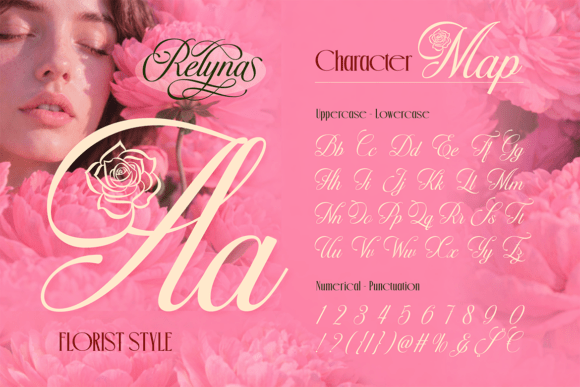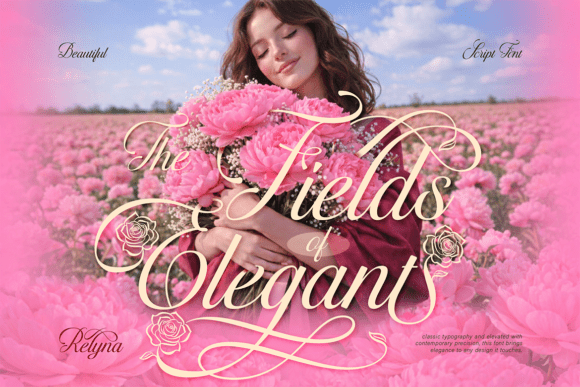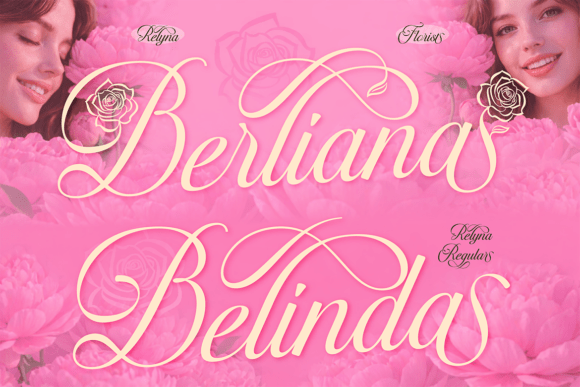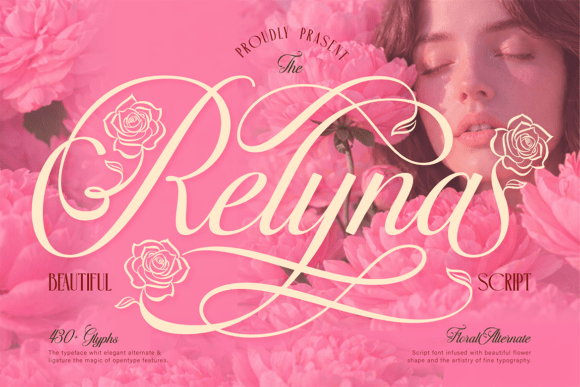
Introduction to Relyna Font
Relyna is a beautiful script font inspired by blooming flowers and romantic moments.
It comes with graceful swashes, soft curves, and unique floral alternates that make your design look more elegant and artistic This font is designed to bring a feminine, luxurious, and timeless feel to any project.
Key Features of Relyna Font
Why Choose Relyna Font?
Relyna Font offers exceptional quality and versatility, making it a valuable addition to your design toolkit. Whether you’re creating for personal projects or commercial use, Relyna Font delivers professional results.